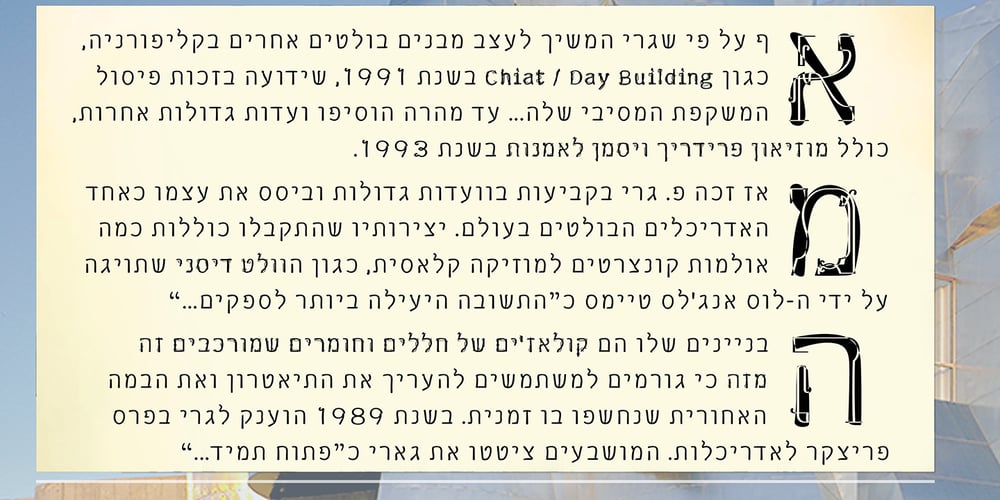
Phone Pro Hebrew
Phone Pro Hebrew font
Phone Pro Hebrew Font Family was designed by Hillel Glueck and published by Tamar Fonts. Phone Pro Hebrew contains 10 styles and family package options. Note: the ‘Phone Pro Hebrew’ typeface, includes just the Hebrew characters of the comprehensive “Phone Pro” family font, sold separately [on this MyFonts site], so they are economical for those interested just in the Hebrew Characters.And regarding the “Phone Pro” project in general, this is what I wrote:’PRISTINE’; this font is—neither beautiful nor ugly, neither vigorous nor weak, neither traditional nor modern, neither serif nor sans serif, neither script nor printable, neither a text font nor a display font—it is rather all of the above, which makes it a more versatile typographic tool—[handwritten] characters that are well-suited for a wide variety of applications—from editorial design, [friendly] greeting cards… to branding, advertising, publicity and digital. Each glyph design combines its unique shapes and stylish ink-traps with parabolic curves. Each glyph design has been treated as an ‘individual character’—the way I would treat a breathing, living, vulnerable and courteous human being; looking after each and every character as if it was my only child — bringing to light the authenticity and uniqueness of each individual, as well as my objective to bring about peace and harmony between them all as a whole.Designed with the intention of harmonizing between four scripts — Latin, Cyrillic, Greek and Hebrew; the whole family has a comprehensive set of characters—in addition to the Latin letters, the Phone typeface also has a full set of characters for Vietnamese, partially extended Cyrillic, Greek and Hebrew (sold separately). The t_t ligature is something unique to Phone, as well as the t_z ligature, among others and extras. A distinctive trait of the Phone typeface, is a high x-height combined with relatively short ascenders.The Phone typeface is in a way evoking the feeling of some Gaelic font and of the [Egyptian] Papyrus font (by Chris Costello, though, not being based on neither of those), having an exotic and an exquisite look, under the category of “Soft Fonts & Friendly Faces”.